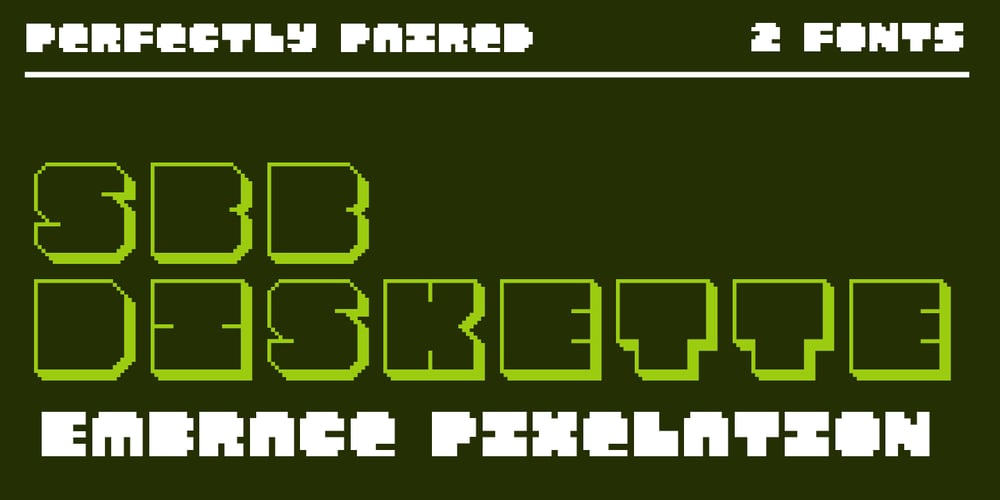
SbB Diskette Font Family was designed by Bob Wertz and published by Sketchbook B. SbB Diskette contains 2 styles and family package options. SbB Diskette is inspired by video game graphics and computers from my childhood. Floppy disks and slow modems. Arcades and cartridges. Two pixel fonts designed to complement each other: an oversized shadow version and a black mini weight. Lean into the pixelated nature of these fonts to evoke the nostalgia of earlier tech.